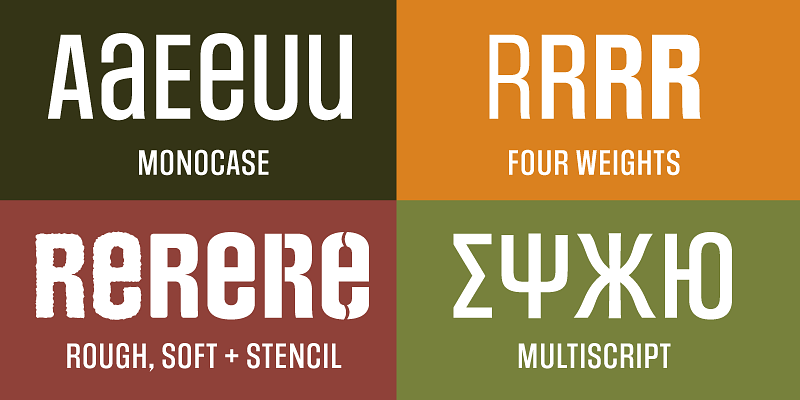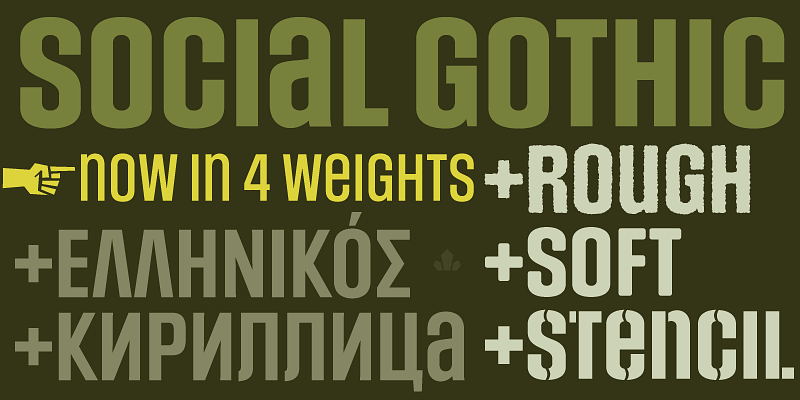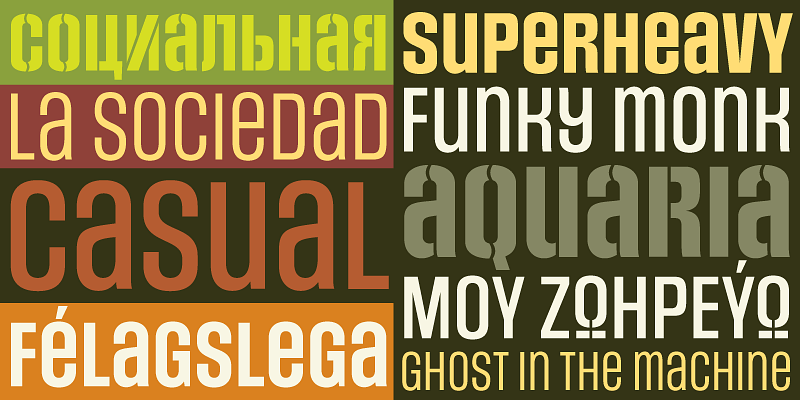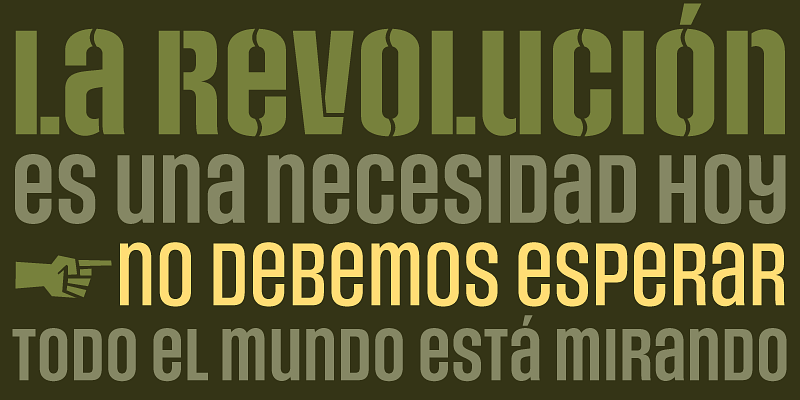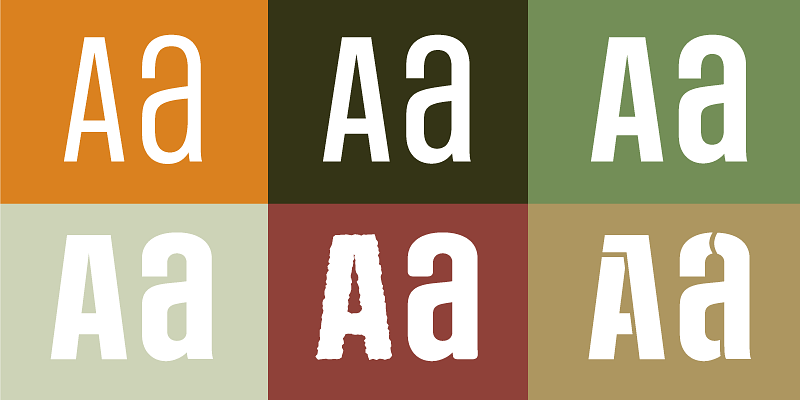
Social Gothic is a gothic face with humanist leanings. It combines standard sans serif elements with some wooden shapes and oval lowercase components to achieve a handmade look while maintaining a clean, understated message delivery.